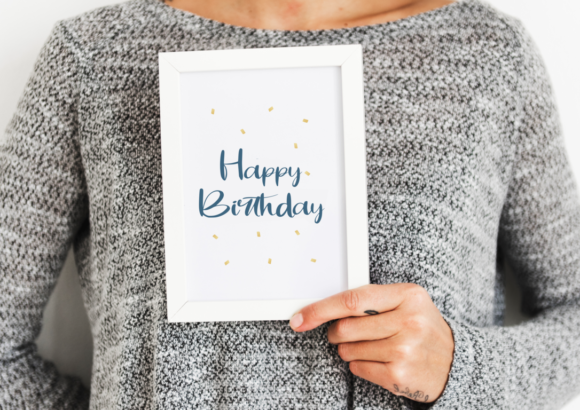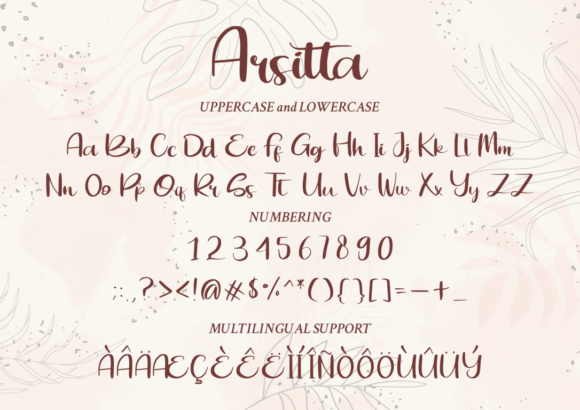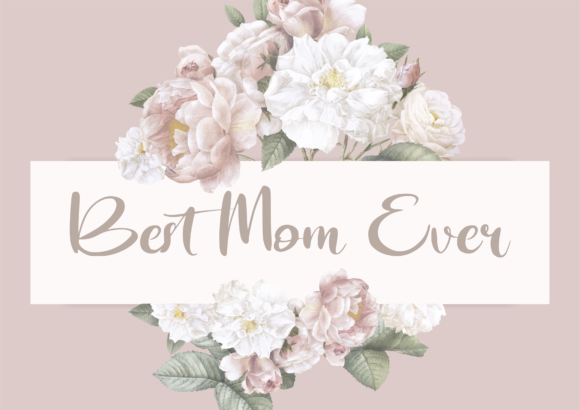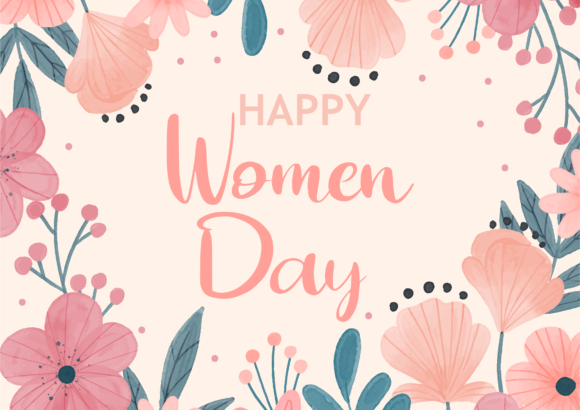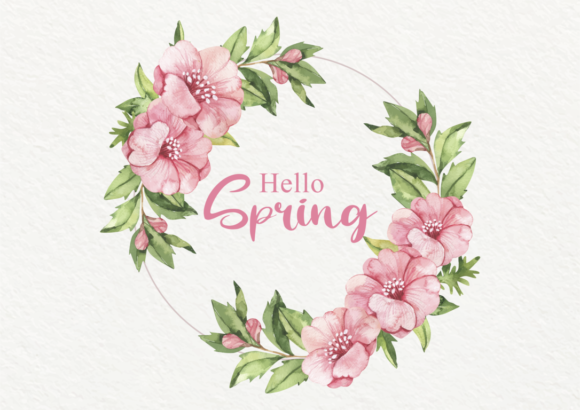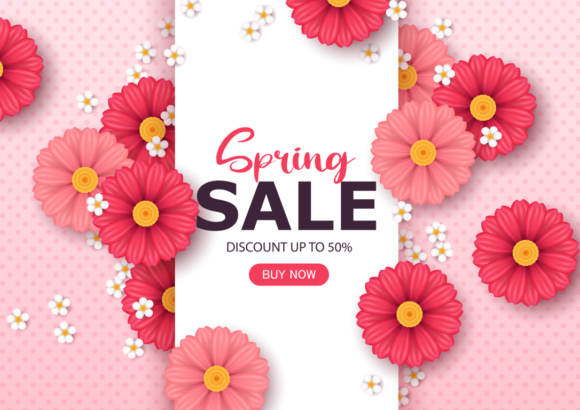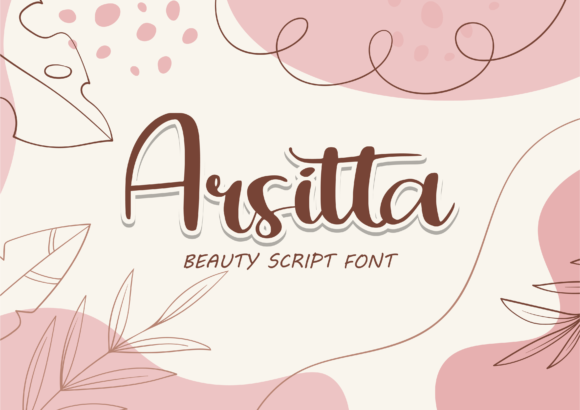
Introducing Arsitta Font: Elevate Your Designs with Elegance and Sophistication
In the world of typography, a font can make or break the aesthetic appeal of a design. For those seeking a script font that embodies elegance, class, and a refreshing look, Arsitta Font is an exceptional choice. This lovely and delicate script font is specifically crafted for designers, crafters, and anyone looking to add a touch of sophistication to their projects.
The Beauty of Arsitta Font
Arsitta Font boasts a unique and captivating design that sets it apart from other script fonts. Its delicate strokes and elegant curves make it perfect for a variety of design applications, from wedding invitations and branding materials to packaging and digital media. The font’s refined appearance adds a level of luxury and poise to any design, making it an excellent choice for those who want to create a lasting impression.
Key Features of Arsitta Font
- Elegant and Delicate Design: Arsitta Font features a beautiful, hand-crafted design that exudes elegance and sophistication.
- Refreshing Look: The font’s unique style adds a refreshing touch to any design, making it perfect for those looking to create something new and exciting.
- Highly Versatile: Arsitta Font can be used for a wide range of design applications, from print materials to digital media.
- Easy to Read: Despite its delicate nature, Arsitta Font remains highly legible, making it suitable for body text and headings.
Arsitta Font is an excellent choice for designers and crafters looking to add a touch of elegance to their projects. Whether you’re creating wedding invitations, branding materials, or packaging, this font is sure to impress. Its versatility and legibility make it perfect for a variety of design applications, from digital media to print materials.
How to Use Arsitta Font in Your Designs
Using Arsitta Font in your designs is easy. Here are a few tips to get you started:
- Pair it with a Bold Font: Combine Arsitta Font with a bold font to create a striking contrast that adds visual interest to your design.
- Use it for Headings and Titles: Arsitta Font is perfect for headings and titles, where its elegant design can shine.
- Experiment with Colors: Try pairing Arsitta Font with different colors to create a unique and eye-catching design.
Why Choose Arsitta Font?
With so many script fonts available, why choose Arsitta Font? Here are a few reasons:
- Unique Design: Arsitta Font features a unique and captivating design that sets it apart from other script fonts.
- High-Quality: The font is crafted with high-quality design principles, ensuring it looks great in any design application.
- Ease of Use: Arsitta Font is easy to use and works seamlessly with most design software.
Arsitta Font is a beautiful and elegant script font that can elevate your designs to new heights. Its delicate strokes, elegant curves, and refreshing look make it perfect for designers and crafters looking to add a touch of sophistication to their projects. With its versatility, legibility, and ease of use, Arsitta Font is an excellent choice for anyone looking to create stunning designs.